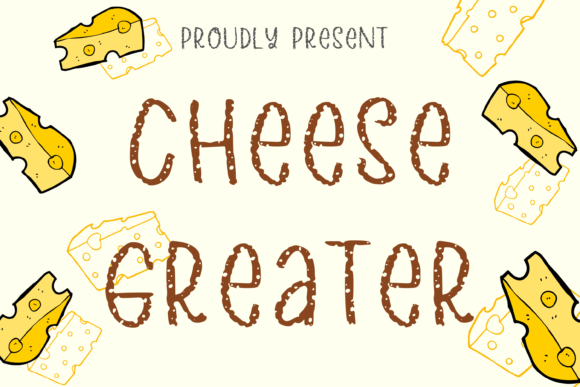
Behold, the Cheese Greater font—a display typeface unlike any other, crafted with meticulous attention to detail by the visionary nuraisyahamalia1729. This font exudes charm and authenticity, inviting you to embark on a creative odyssey like no other.
Unleash your imagination and let Cheese Greater's playful and genuine nature guide you towards captivating designs that resonate with your audience. Whether you're a seasoned designer or just starting, this font is your passport to a world of endless possibilities.
Picture this: a captivating logo that dances before the eyes, a poster that whispers tales of wonder, a website that beckons visitors with its irresistible allure. With Cheese Greater, your creative endeavors will transcend the ordinary and take flight into the extraordinary.
But Cheese Greater's magic extends far beyond mere aesthetics. It's a font that speaks to the heart, evoking emotions and igniting imaginations. Let its gentle curves and playful strokes carry your message with grace and finesse, leaving an indelible mark on your audience.
So, embrace the Cheese Greater font, and open the door to a world of creative possibilities. Dare to be different, to stand out from the crowd, to make a statement that will reverberate for years to come. With Cheese Greater, your creative dreams will flourish, and your designs will leave a lasting impression wherever they go.